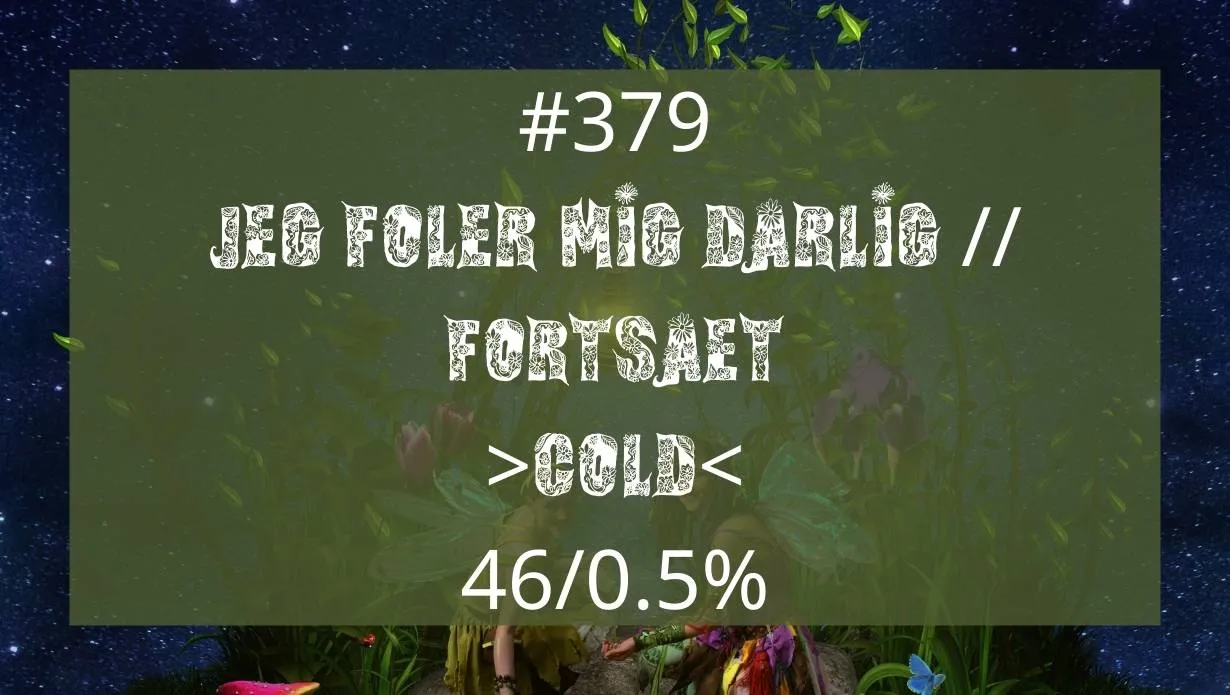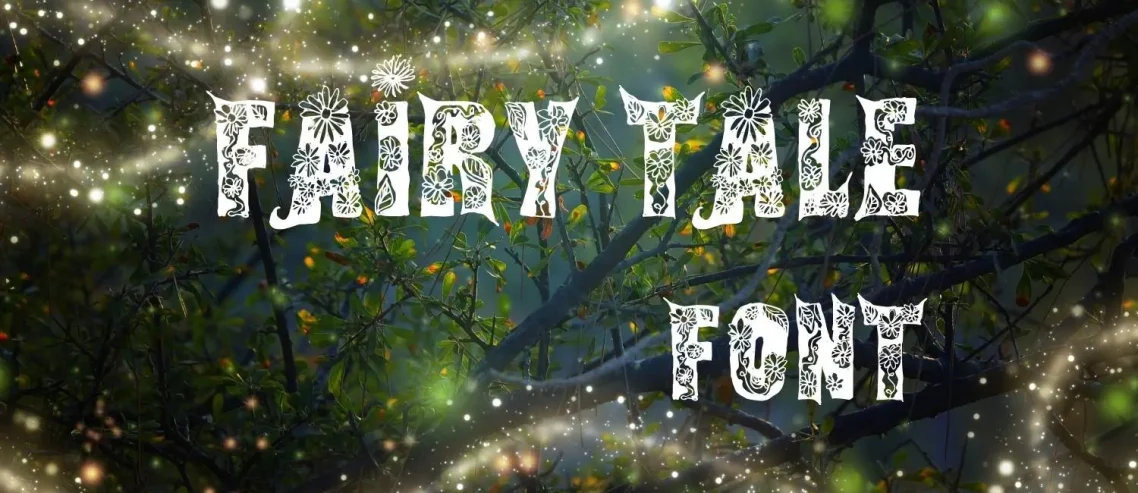
Fairy Tale Font is a typeface that can be found in the Google Font library. This font is inspired by traditional fairy tales and features a whimsical design with curly letters and playful details.
View of Fairy Tale Font
Fairy Tale Font Info
| Name | Fairy Tale Font |
| Designer | Alejandro Paul |
| Category | Fancy |